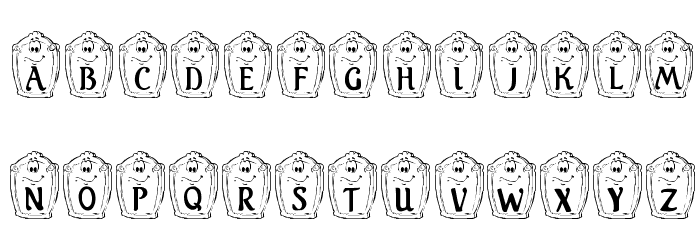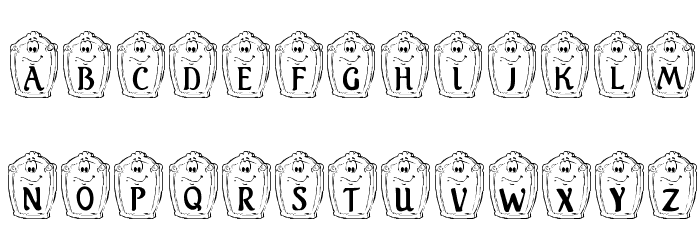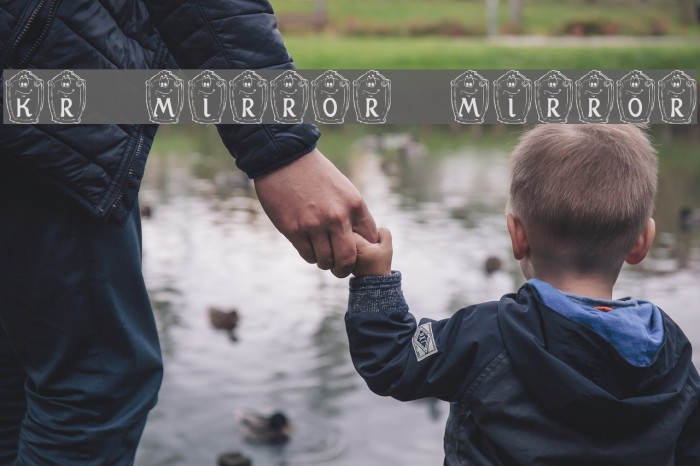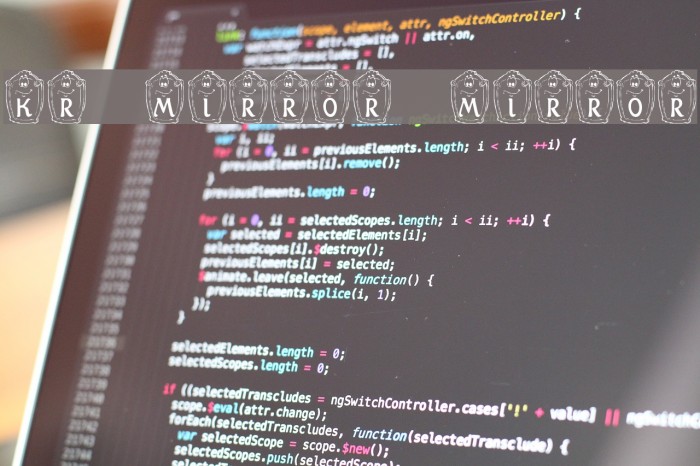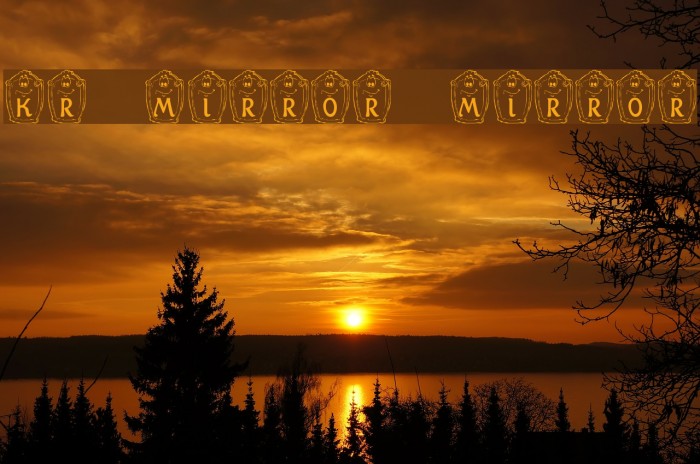
KR Mirror Mirror Font
This decorative font features each letter encased in an ornate mirror-like frame, giving it a whimsical and fairy-tale appearance. The uppercase letters are bold and distinct, with a slight serif style that adds a touch of elegance. The intricate border around each character resembles a vintage hand-held mirror, complete with detailed embellishments. This design choice makes the font highly decorative and suitable for themed projects. The overall style is playful yet sophisticated, making it ideal for creative and artistic uses.
A decorative font with letters encased in ornate mirror frames, perfect for whimsical designs.
- Proposed Projects: Ideal for fairy-tale themed invitations, fantasy book covers, decorative posters, and creative branding.
- Use Case: Headlines, Logos, Decorative text